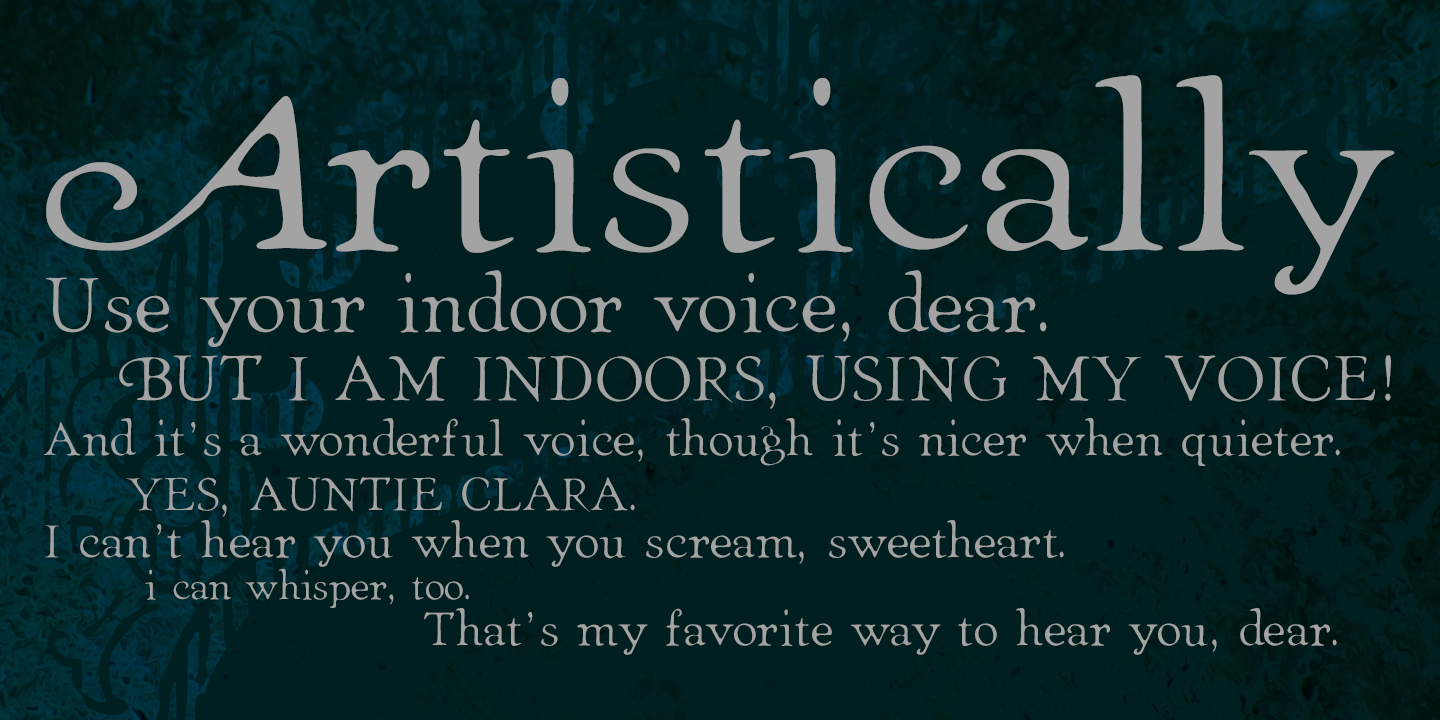
Heirloom Artcraft Font is perfect for traditional craft business branding, antique shop signage, heritage family logos, artisanal product packaging, vintage workshop materials, handmade pottery labels, generational business identity, and classic craftsmanship marketing. This timelessly authentic typeface excels in projects requiring ancestral wisdom and traditional artistry where family heritage meets contemporary appreciation for handcrafted excellence.
What makes Heirloom Artcraft Font exciting is its beautiful preservation of traditional craftsmanship aesthetics through lovingly crafted letterforms that embody generations of artisanal knowledge and family tradition. The font features heritage-inspired characters with time-honored proportions and craftsman details that convey authenticity, quality, and the irreplaceable value of skills passed down through generations. Its traditional character makes it perfect for artisans and family businesses celebrating the timeless appeal of handcrafted goods and traditional methods.
Heirloom Artcraft Font family includes multiple weights and traditional variations that enhance its heritage appeal while providing design flexibility for artisanal and family business applications. The family typically offers light, regular, medium, and bold weights, along with vintage alternates, craft symbols, and traditional ornaments that complement heritage and artisanal design themes perfectly.
Whether you're developing family craft business branding, creating artisanal product marketing, or designing heritage celebration materials, Heirloom Artcraft Font Free Download provides the perfect traditional solution for projects honoring craftsmanship and family heritage. This font's authentic charm and generational appeal make it essential for artisans and family businesses celebrating the enduring value of traditional skills and handcrafted quality.
The lovingly crafted letterforms and heritage proportions of Heirloom Artcraft Font create immediate connections to family traditions while maintaining excellent readability across all artisanal applications. Its distinctive traditional personality and craft symbolism make it an invaluable tool for designers working with artisanal, heritage, and family business brands. Download Heirloom Artcraft Font today and honor traditional craftsmanship in your creative projects with this authentically heritage-inspired typeface that perfectly captures the timeless value of generational artisanal wisdom and family craft traditions.